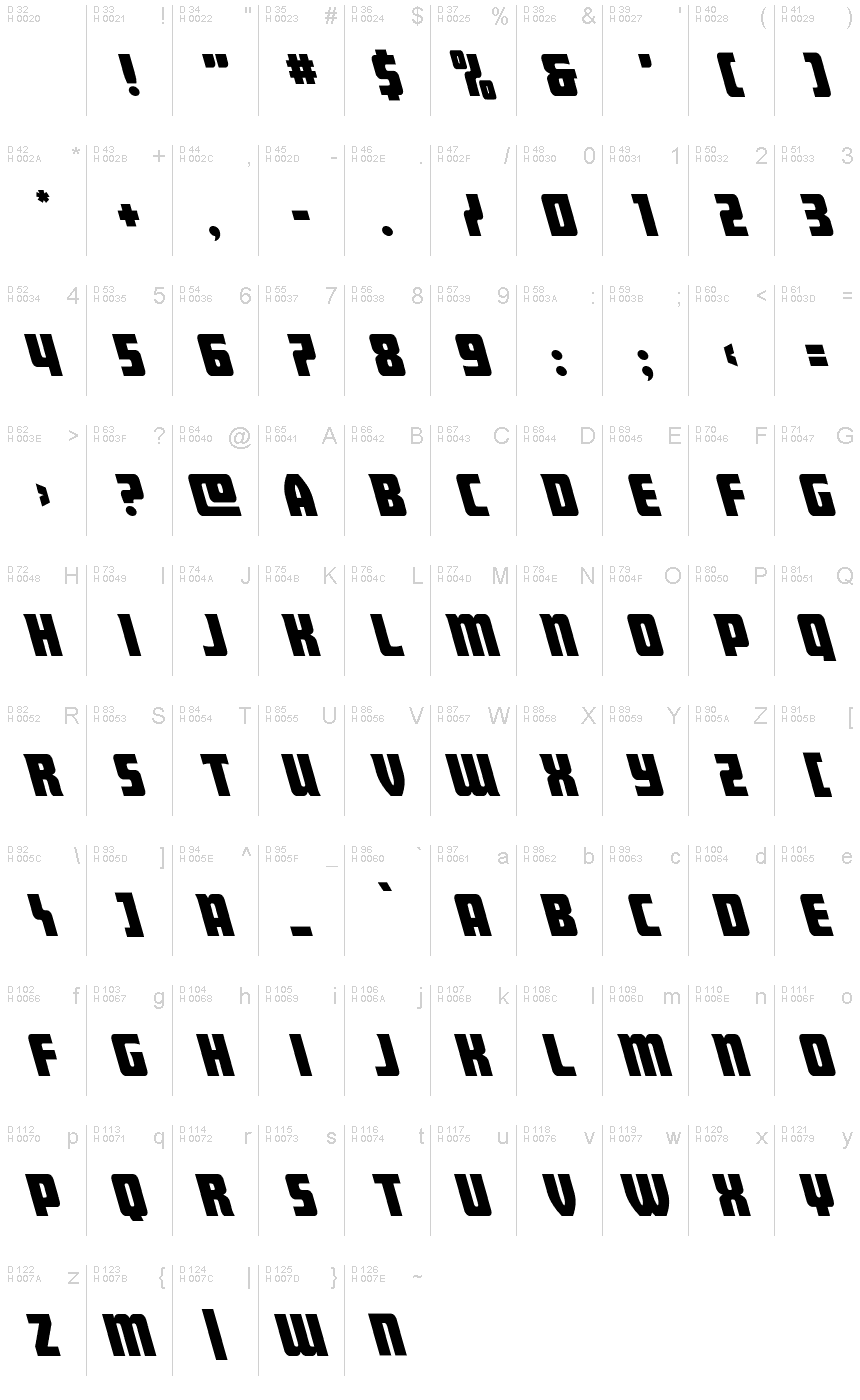
Intrepid Spear Super-Leftalic
Intrepid Spear Super-Leftalic, from the dynamic Intrepid Spear font family designed by Iconian Fonts, is a bold statement in the realm of display typefaces. With its techno style and extra-condensed width, this font exudes a futuristic vibe that is both sharp and assertive. The strong, bold weight of the characters demands attention, making it an ideal choice for headlines that need to stand out or creative projects that call for a touch of modernity.
The visual aesthetic of Intrepid Spear Super-Leftalic is characterized by its angled cuts and geometric precision, which capture the essence of high-speed motion and digital sophistication. Its unique slant adds an aggressive edge to any text, bringing an energetic flow to layouts and designs. This font isn't just about looks; its two sub-families—Regular and Lower Case—provide versatility for designers who require both uniformity and variety within their creations.
Whether it's branding, poster design, or immersive digital experiences, Intrepid Spear Super-Leftalic offers endless possibilities for designers to explore. It's not just a font; it's a powerful tool designed to propel your message into the spotlight with confidence and style.
The visual aesthetic of Intrepid Spear Super-Leftalic is characterized by its angled cuts and geometric precision, which capture the essence of high-speed motion and digital sophistication. Its unique slant adds an aggressive edge to any text, bringing an energetic flow to layouts and designs. This font isn't just about looks; its two sub-families—Regular and Lower Case—provide versatility for designers who require both uniformity and variety within their creations.
Whether it's branding, poster design, or immersive digital experiences, Intrepid Spear Super-Leftalic offers endless possibilities for designers to explore. It's not just a font; it's a powerful tool designed to propel your message into the spotlight with confidence and style.